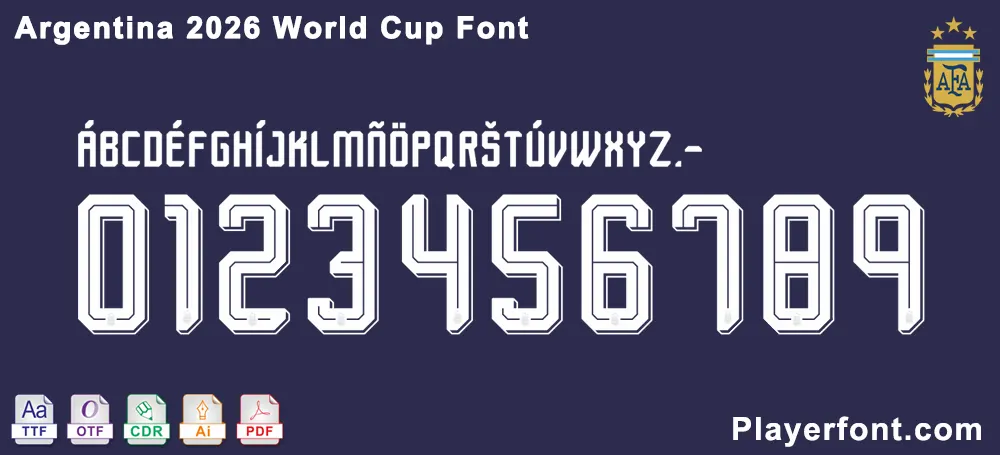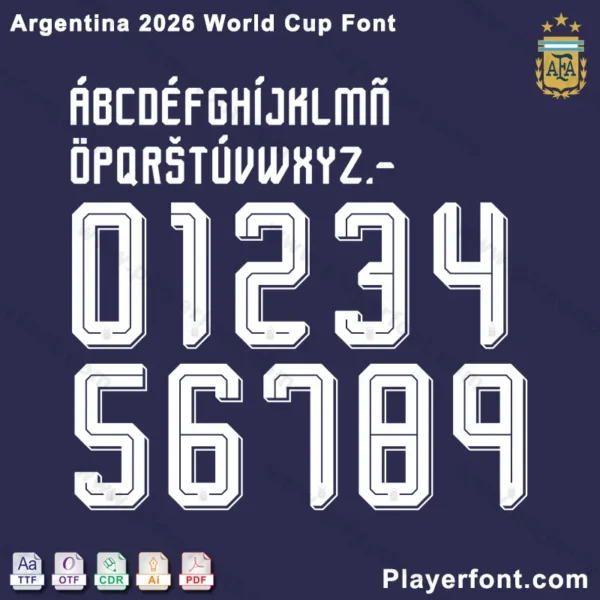
Introducing the official Argentina 2026 World Cup Away Font Kit – the definitive typography resource for fans, designers, and creators supporting La Albiceleste on the road to the World Cup. This premium digital download includes versatile vector files in five professional formats:
Perfect for creating Argentina kit-inspired designs, custom fan merchandise, matchday posters, social media graphics, banners, and personal projects. This font kit captures the unique typography of Argentina’s 2026 away identity, including special characters like Á, É, Í, Ó, Ú, Ü, and Ñ for authentic Spanish rendering.